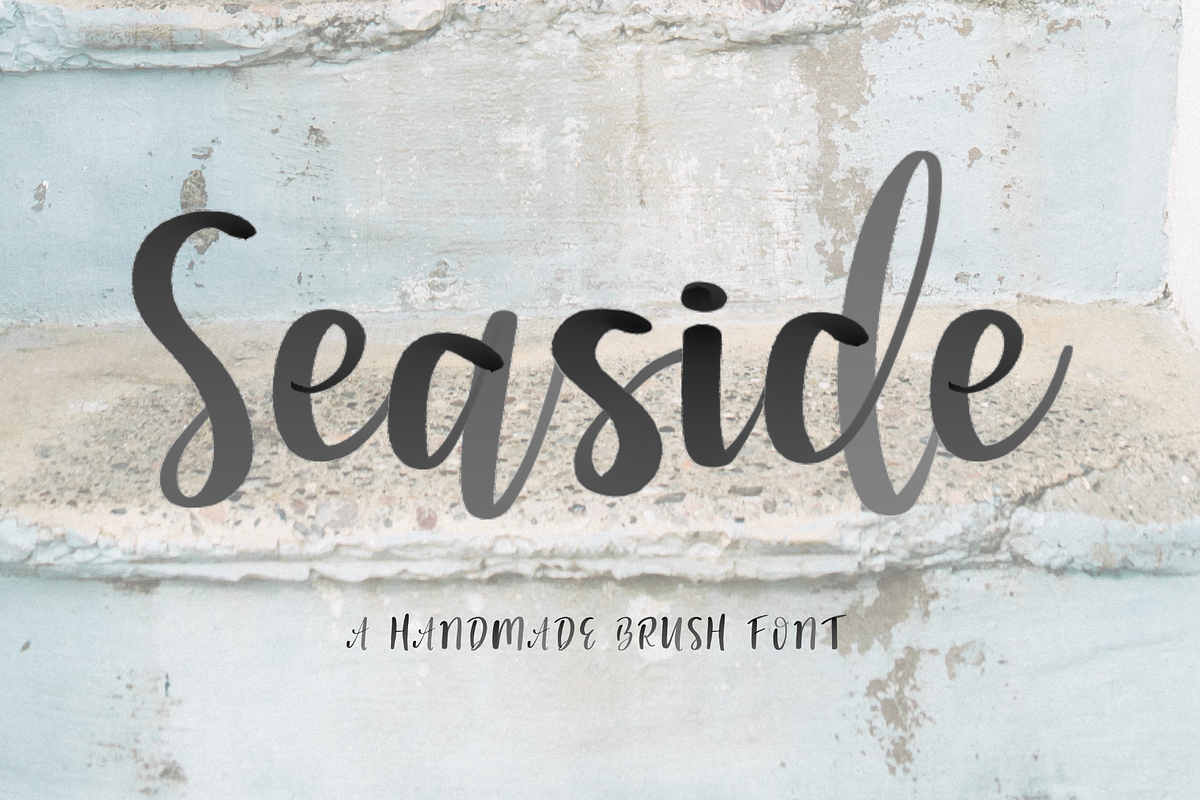
Seaside Font + Watercolor SVG Free Download is a whimsical and artistic font collection that combines elegant lettering with stunning watercolor graphics. Perfect for beach-themed designs, vacation branding, wedding invitations, event posters, and custom merchandise, Seaside brings both charm and creativity to your projects.
The font features smooth, flowing script and is complemented by beautiful watercolor SVG elements that allow you to create unique, personalized designs with ease. Whether you’re designing for a coastal brand or crafting a summer-themed greeting card, Seaside Font adds a refreshing, artistic touch to your typography.